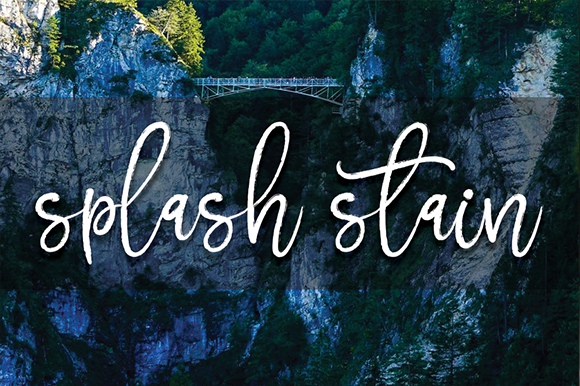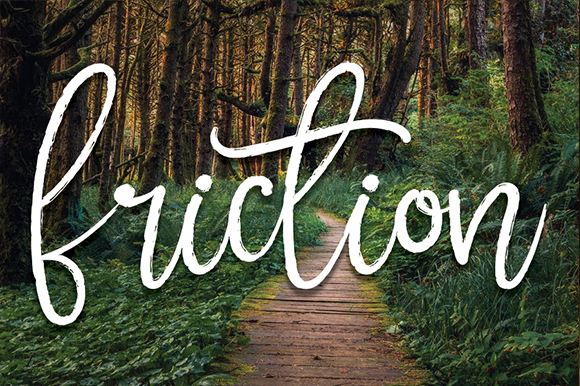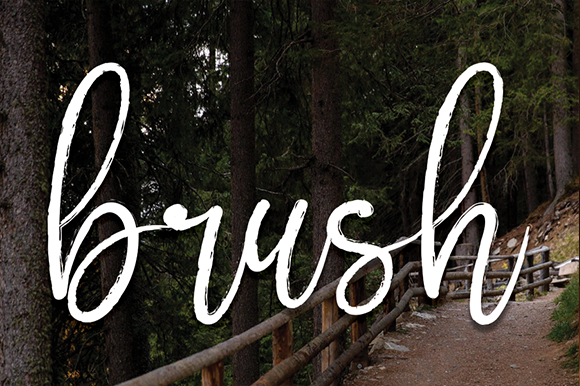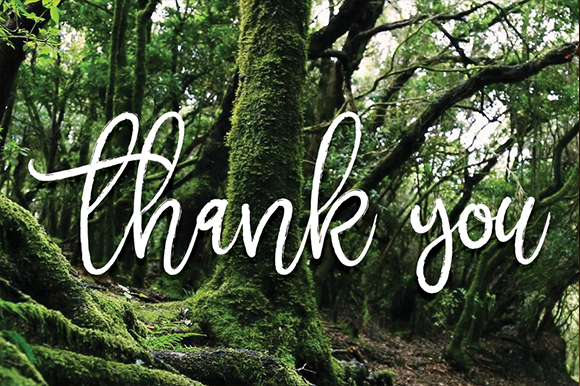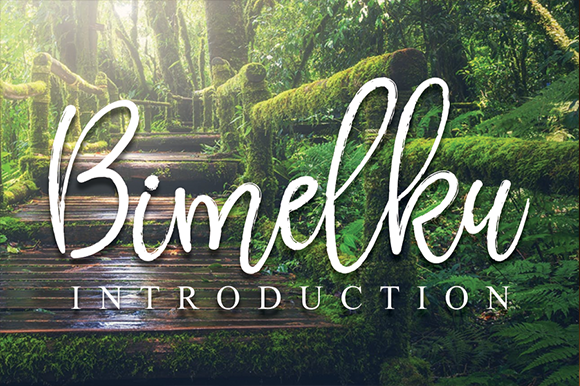
Bimelku Font: The Perfect Casual and Fun Handwritten Font for Designers and Crafters
Are you looking for a font that adds a personal touch to your designs? Look no further than Bimelku Font. This casual, fun handwritten font is created by using a brush pen, giving it a clean and quirky feel that’s perfect for a variety of design projects. In this article, we’ll explore the features and benefits of Bimelku Font, and how it can elevate your logos, branding, social media, and crafty DIY projects.
What is Bimelku Font?
Bimelku Font is a unique and charming handwritten font that’s designed to add a touch of personality to your designs. Created with a brush pen, this font has a distinctive feel that’s both clean and quirky. The font is perfect for designers and crafters who want to add a personal touch to their work, without sacrificing legibility or style.
Features of Bimelku Font
Bimelku Font has several features that make it an excellent choice for designers and crafters. Some of its key features include:
- Handwritten with a brush pen: The font’s handwritten style gives it a personal and unique feel that’s perfect for adding a touch of personality to your designs.
- Clean and quirky: Bimelku Font has a clean and quirky feel that’s perfect for a variety of design projects, from logos and branding to social media and crafty DIY projects.
- Highly legible: Despite its handwritten style, Bimelku Font is highly legible, making it perfect for use in a variety of design projects.
- Versatile: Bimelku Font is versatile and can be used in a variety of design projects, from logos and branding to social media and crafty DIY projects.
Benefits of Using Bimelku Font
There are several benefits to using Bimelku Font in your design projects. Some of the benefits include:
- Adds a personal touch: Bimelku Font adds a personal touch to your designs, making them stand out from the crowd.
- Perfect for branding: The font’s unique and charming style makes it perfect for use in branding projects, such as logos and business cards.
- Great for social media: Bimelku Font is perfect for use in social media graphics, such as Facebook posts and Instagram stories.
- Ideal for crafty DIY projects: The font’s handmade feel makes it perfect for use in crafty DIY projects, such as handmade cards and invitations.
How to Use Bimelku Font
Bimelku Font is easy to use and can be incorporated into a variety of design projects. Here are some tips for using Bimelku Font:
- Use it for logos and branding: Bimelku Font is perfect for use in logos and branding projects, such as business cards and letterheads.
- Use it for social media graphics: The font is great for use in social media graphics, such as Facebook posts and Instagram stories.
- Use it for crafty DIY projects: Bimelku Font is perfect for use in crafty DIY projects, such as handmade cards and invitations.
- Experiment with different colors and textures: To add an extra touch of personality to your designs, experiment with different colors and textures.
Bimelku Font is a unique and charming handwritten font that’s perfect for designers and crafters who want to add a personal touch to their designs. With its clean and quirky feel, Bimelku Font is perfect for use in a variety of design projects, from logos and branding to social media and crafty DIY projects. So why not give Bimelku Font a try and see how it can elevate your designs?
Whether you’re a professional designer or a crafter looking for a unique font to use in your projects, Bimelku Font is an excellent choice. Its highly legible and versatile style makes it perfect for use in a variety of design projects, and its handmade feel adds a personal touch that’s sure to make your designs stand out.
So if you’re looking for a font that adds a personal touch to your designs, look no further than Bimelku Font. With its unique and charming style, Bimelku Font is the perfect fit for all of your logos, branding, social media, and crafty DIY projects.